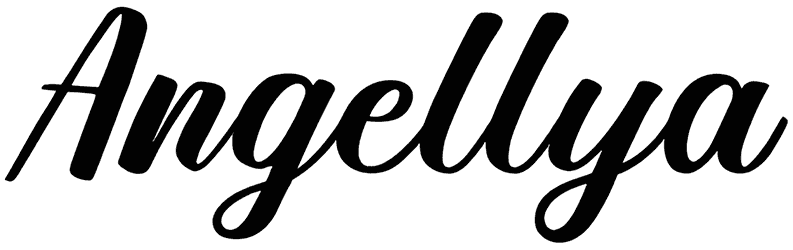
Angellya Font
Personalized beauty is what makes Angellya a particular member of your collection. This calligraphy font has regular and pleasant twists that can attract the audience’s attention and encourage them to read your content.
With this romantic font, you can inject a lot of personality into your texts, which will double their value. So arm yourself with Angellya on any poster, wedding card, or invitation that needs a little spice of beauty and power.